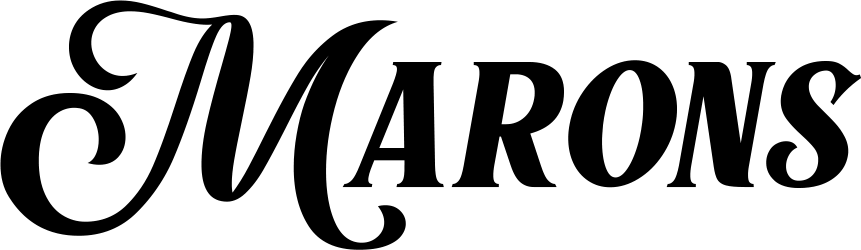
Marons Font
Do you like to use a specific font for different applications such as logo design and intend to make a big impact on your audience at the same time? If you like to achieve your marketing aims, using the Marons font is a great idea.
Marons is a swash font and by using it, you can write formal text and at the same time give a personal and nostalgic atmosphere to your website.